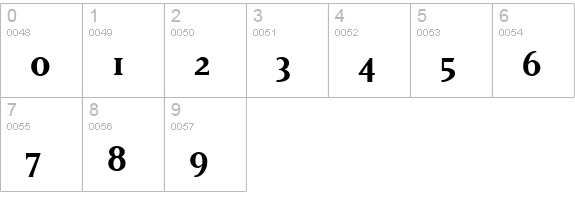
MatrixBoldOldstyle Bold is a strong, high-contrast variant in the MatrixBoldOldstyle typeface family \xE2\x80\x94 well suited to headlines, attention-grabbing titles, and strong calls-to-action.
MatrixBoldOldstyle Bold is a timeless and sophisticated font that exudes elegance and authority. Its bold weight commands attention and makes a strong statement in any design project. The classic oldstyle design of the characters gives this font a sense of tradition and refinement, making it a versatile choice for both modern and traditional applications. And the best part? MatrixBoldOldstyle Bold is available for free download at FontsMarket.com! This means you can easily incorporate this stunning font into your projects without any cost, adding a touch of sophistication and professionalism without breaking the bank. Don't miss out on this opportunity to elevate your designs with MatrixBoldOldstyle Bold - download it now and unleash its powerful impact on your creative endeavors!